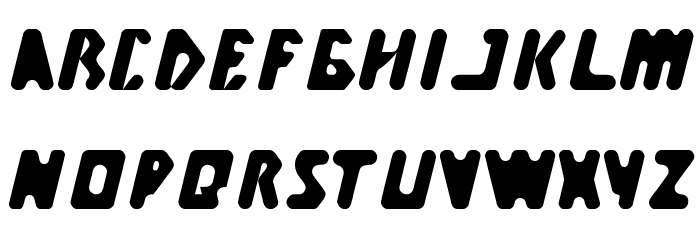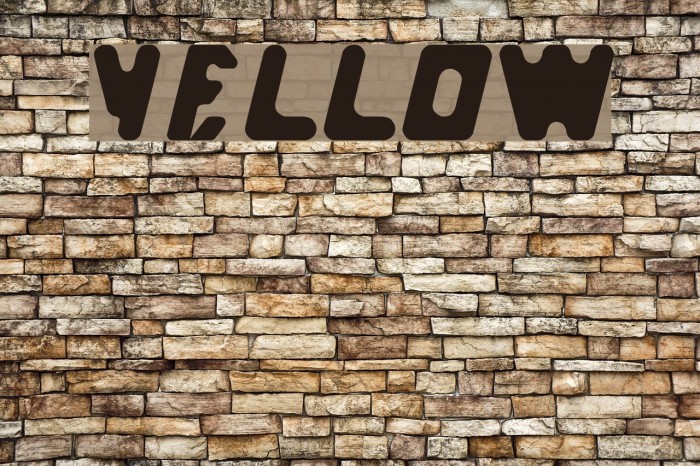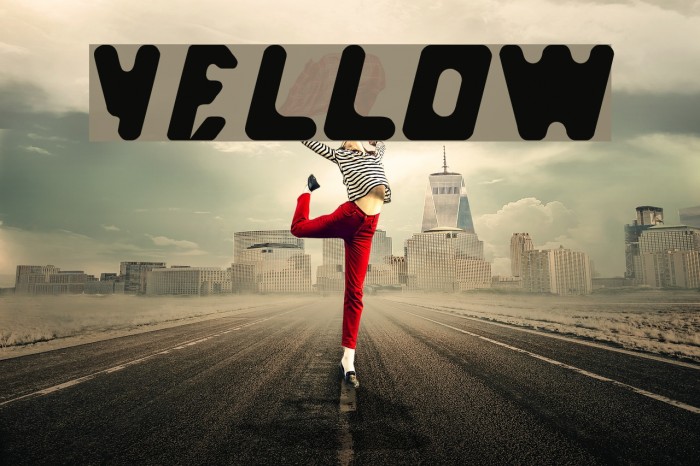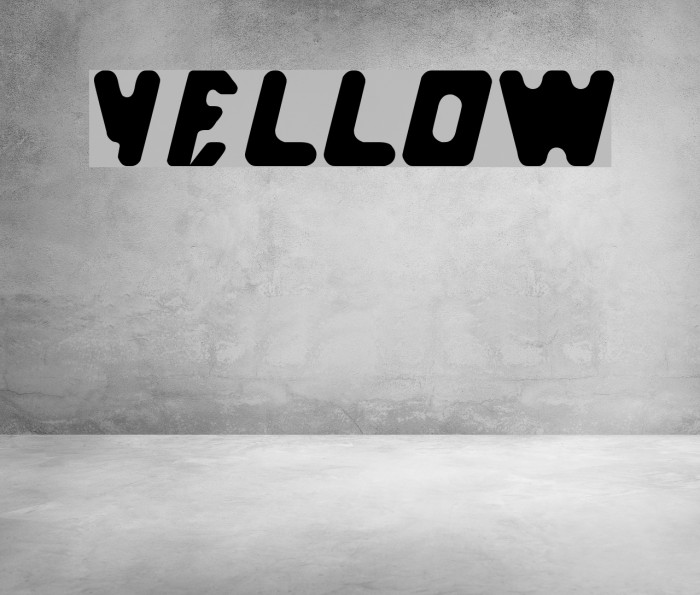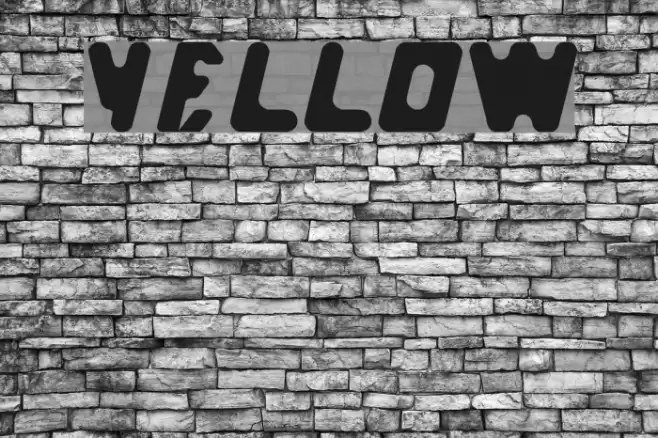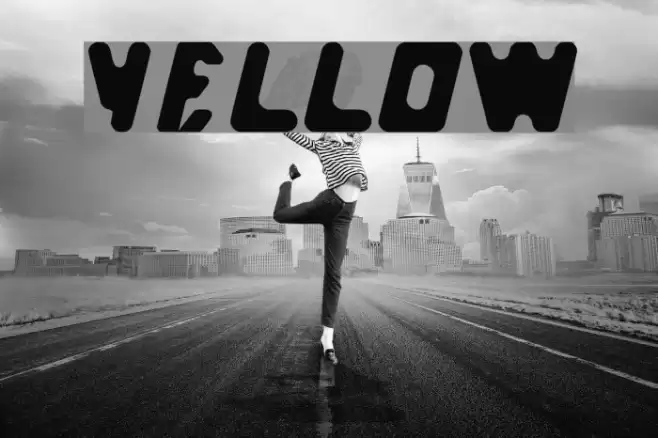
yellow Font
This font features a bold and dynamic style with a strong geometric influence. The characters are constructed with thick, angular strokes that create a sense of movement and energy. The uppercase letters are particularly striking, with sharp edges and a futuristic appearance. The overall look is both modern and retro, reminiscent of digital or sci-fi themes. The font's boldness makes it highly legible and impactful, suitable for attention-grabbing designs. Its unique character shapes add a playful yet assertive tone, making it versatile for various creative projects.
A bold, geometric font with a futuristic and dynamic style.
- Proposed Projects: Ideal for sci-fi themed posters, video game graphics, branding for tech companies, and eye-catching headlines.